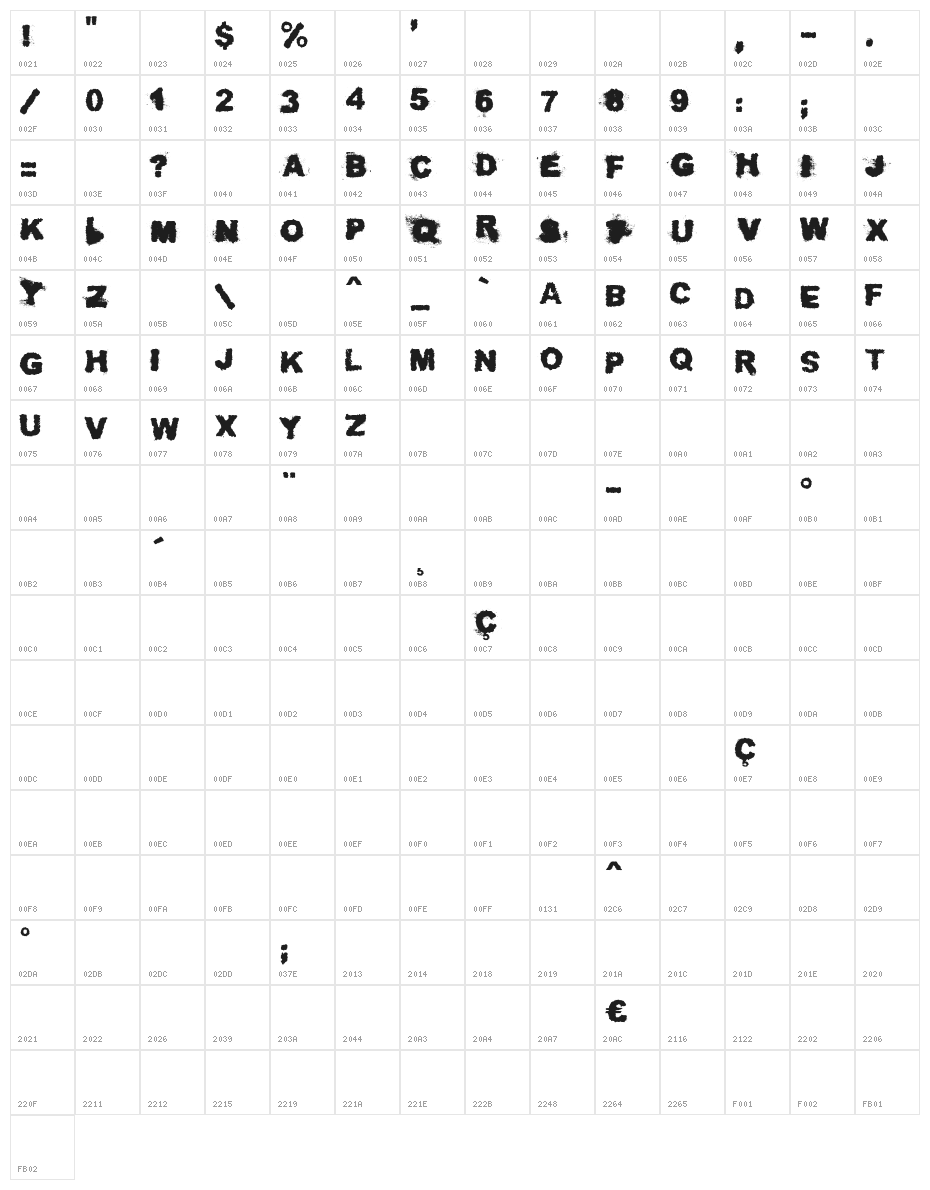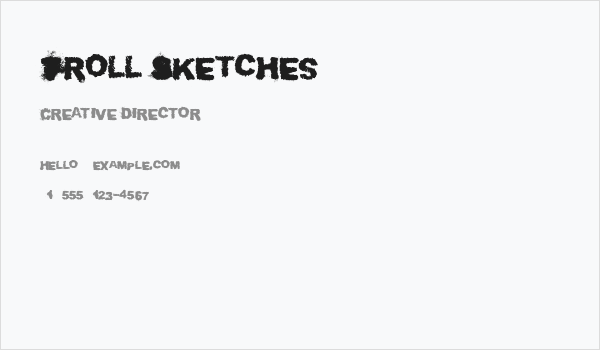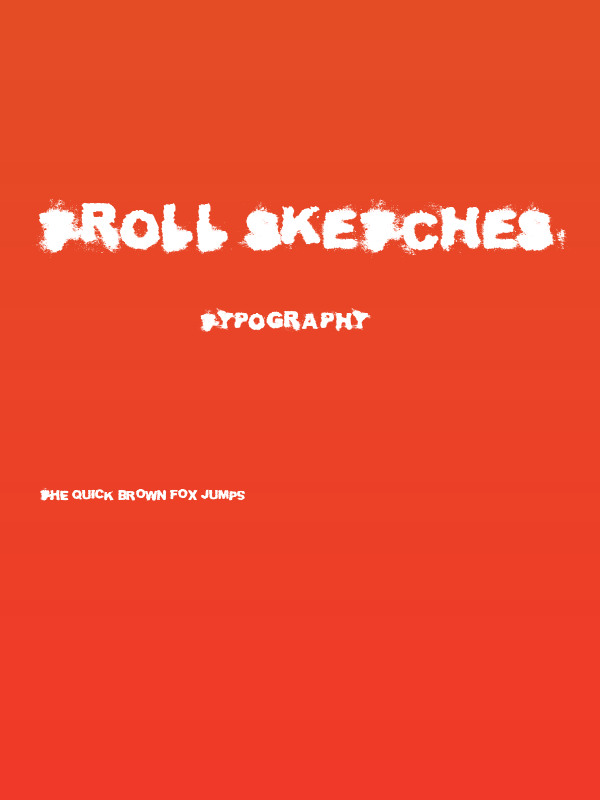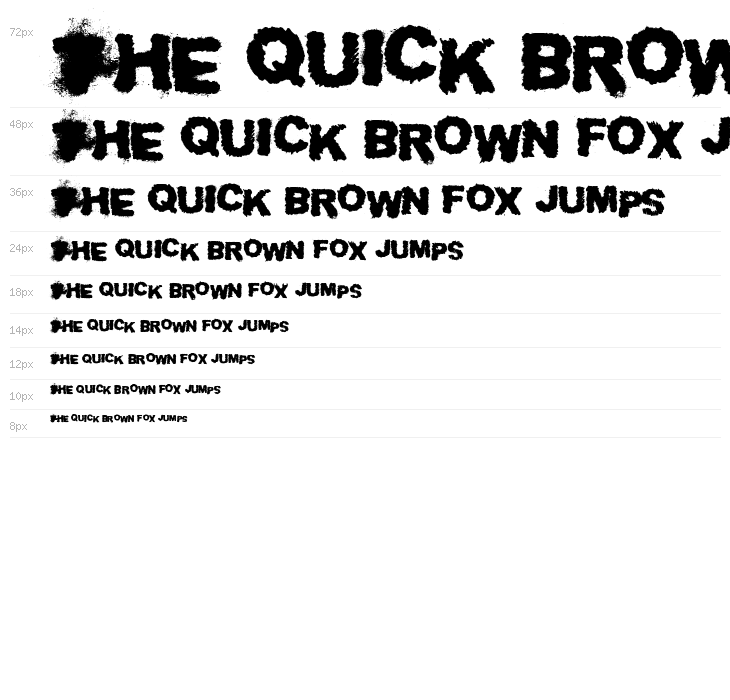
Troll Sketches Font
Troll Sketches Description
This font features a bold and rugged appearance, with each character appearing as if it has been sketched with a rough brush or sponge. The edges are irregular and textured, giving it a distressed and organic feel. The uppercase and lowercase letters maintain a consistent style, with a playful and artistic flair. Numbers and special characters follow the same design, ensuring uniformity across all glyphs. The font's unique texture makes it stand out, ideal for projects that require a handcrafted or grunge aesthetic.
| Proposed Projects | Ideal for posters, album covers, artistic projects, and branding that requires a bold, handcrafted look. |